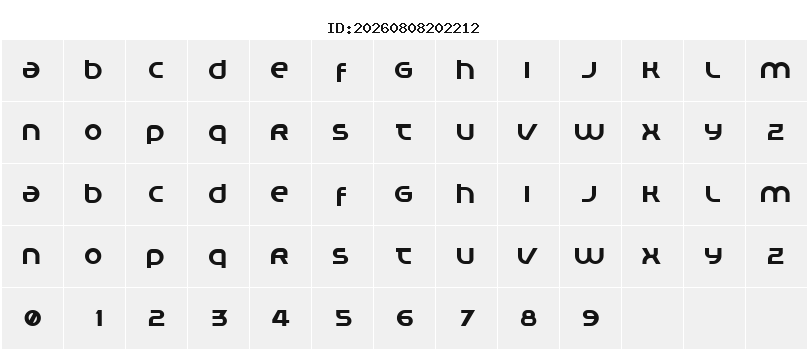
• Font Name: Planet Megapolis
• Full Font Name: Planet Megapolis
About Planet Megapolis.ttf
Planet Megapolis.ttf is a modern, elegant sans-serif font designed for ultimate readability and visual harmony. Perfect for branding, headlines, web design, and print materials.